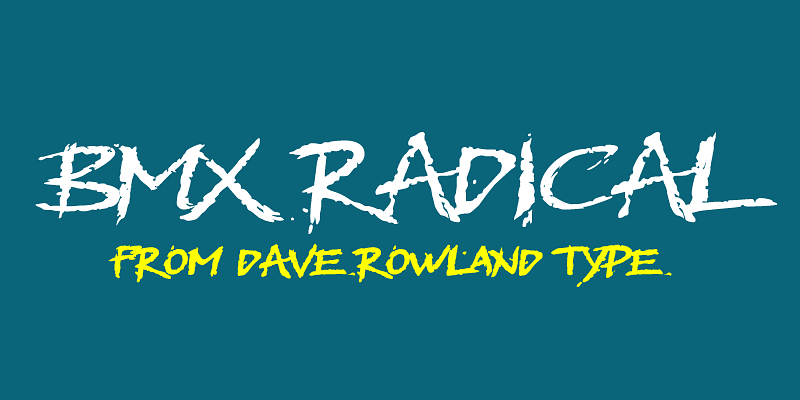
BMX Radical Font Free Download is an energetic and bold display typeface inspired by the rebellious spirit of extreme sports and retro BMX culture. With sharp angles, thick strokes, and an all-caps structure, this font is perfect for posters, sports branding, merchandise, video game titles, and any design that needs to radiate power, motion, and attitude.
BMX Radical captures the raw energy of freestyle action with a design that demands attention. Its rugged, dynamic forms make it ideal for urban and youth-focused projects, while still offering great legibility and visual punch.